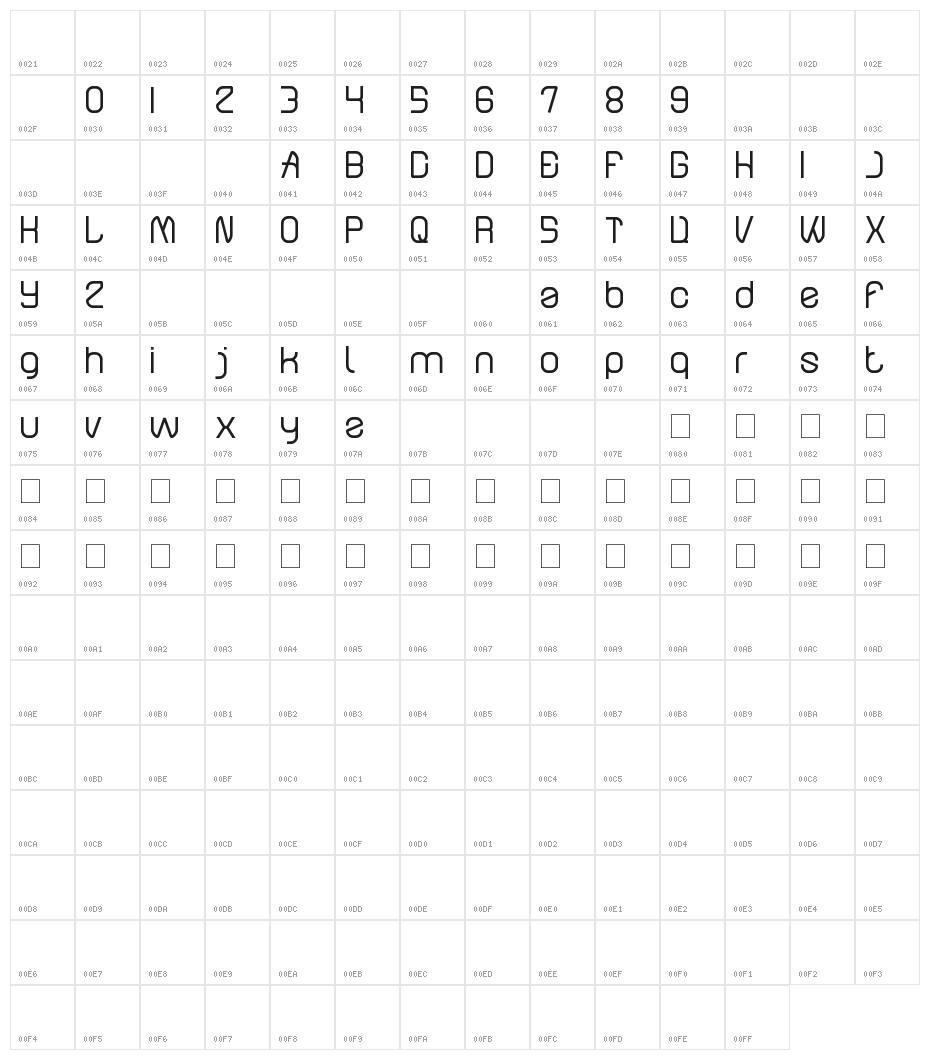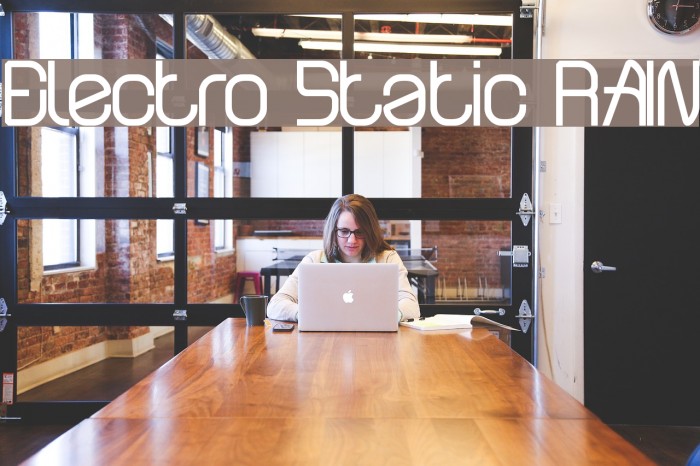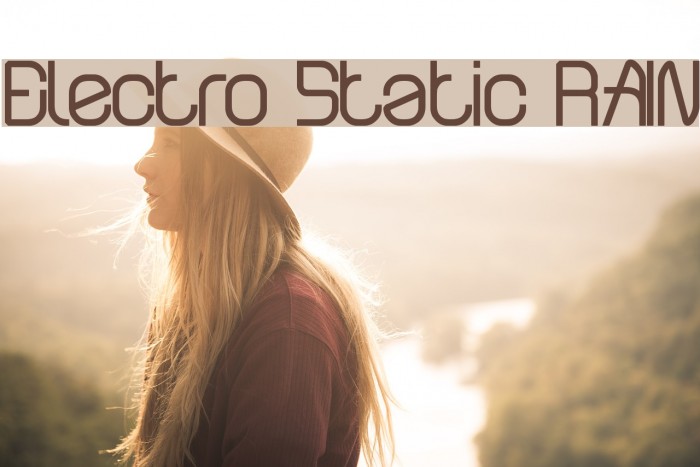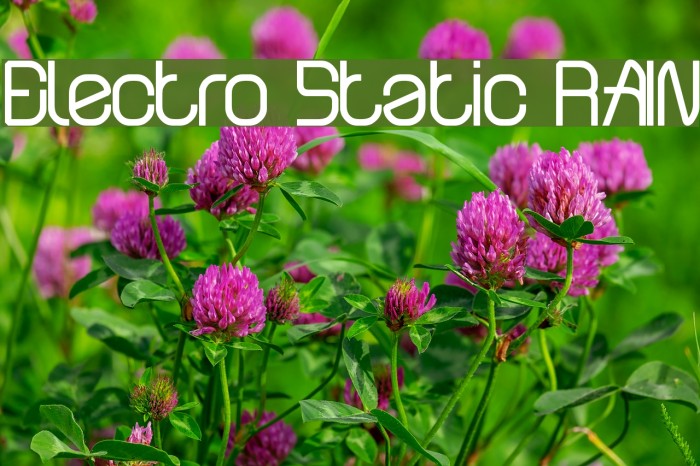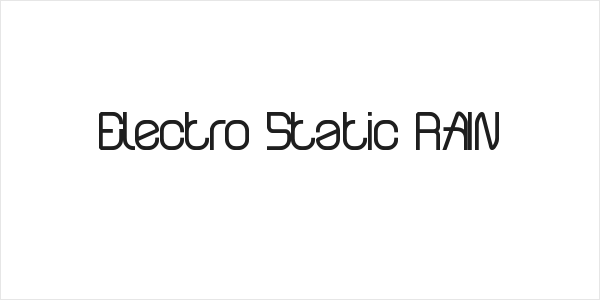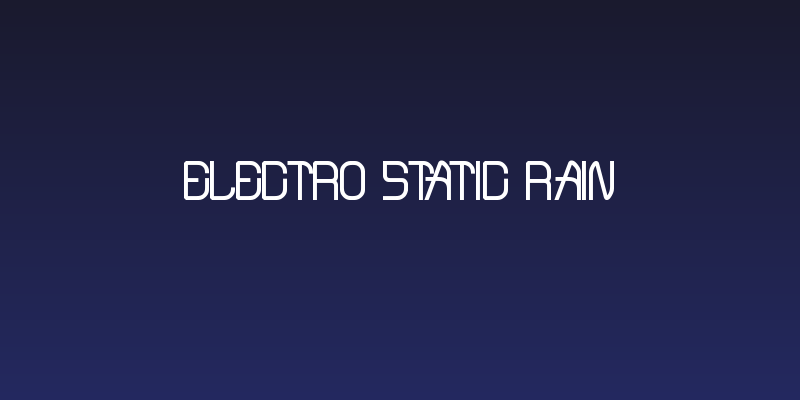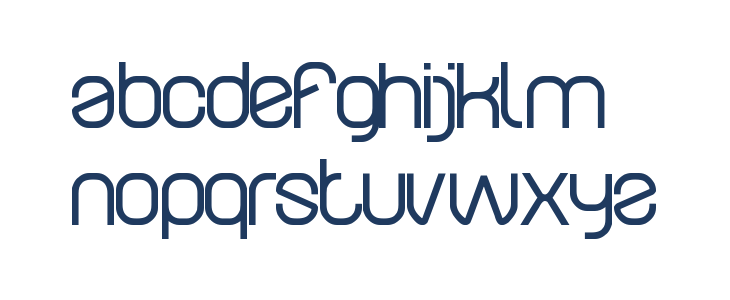
Electro Static RAIN Font
Electro Static RAIN Description
This font exhibits a futuristic and geometric design, characterized by its clean lines and rounded edges. The uppercase letters are bold and structured, with a uniform height that creates a cohesive look. The lowercase letters maintain a similar style, offering a smooth transition between characters. Numbers are designed with the same geometric precision, ensuring readability and consistency. The special characters blend seamlessly with the rest of the font, maintaining the overall aesthetic. This font's modern appeal is suitable for digital and print media, offering versatility in various design contexts.
ELECTRO-STATIC-RAIN UPPERCASE
ELECTRO-STATIC-RAIN LOWERCASE
ELECTRO-STATIC-RAIN OTHER CHARS
| Use Case | Headlines, Logos, Digital Interfaces |
| Proposed Projects | Ideal for technology branding, digital interfaces, modern advertising, and futuristic-themed projects. |